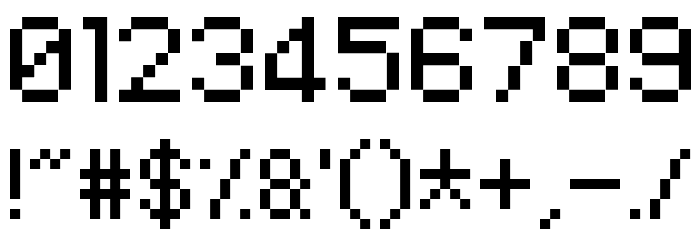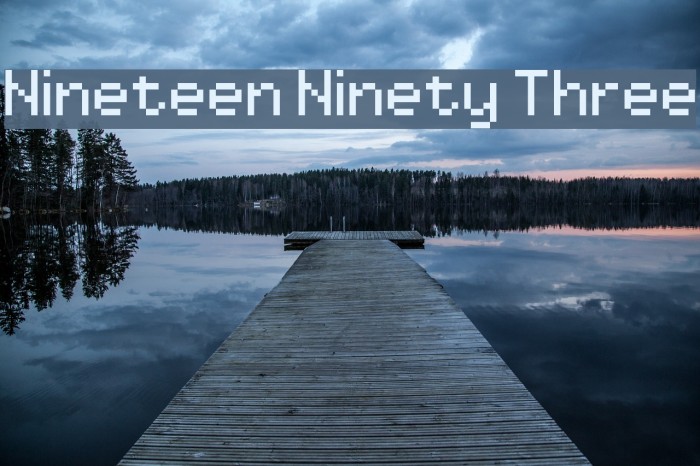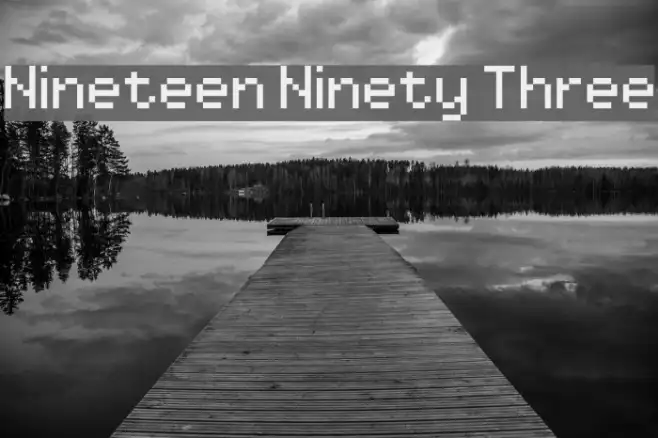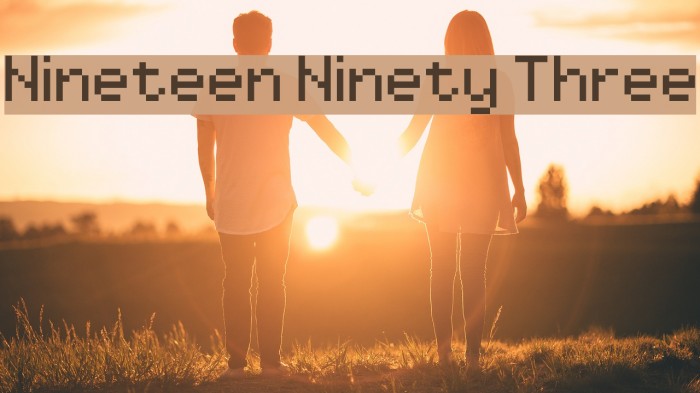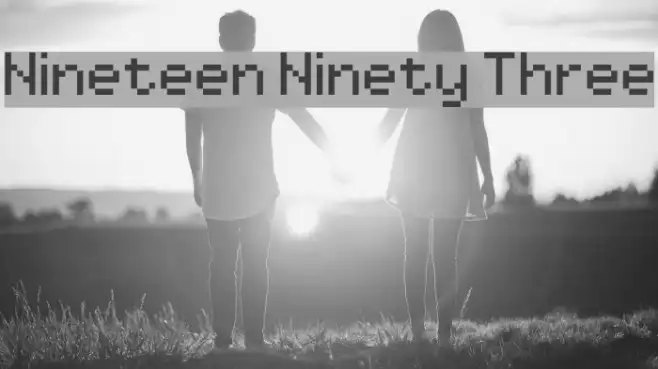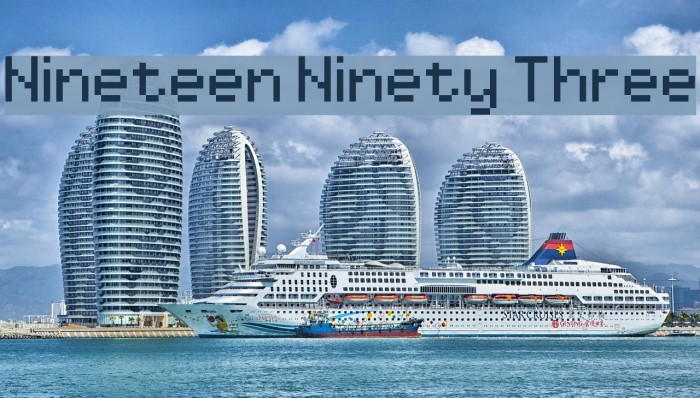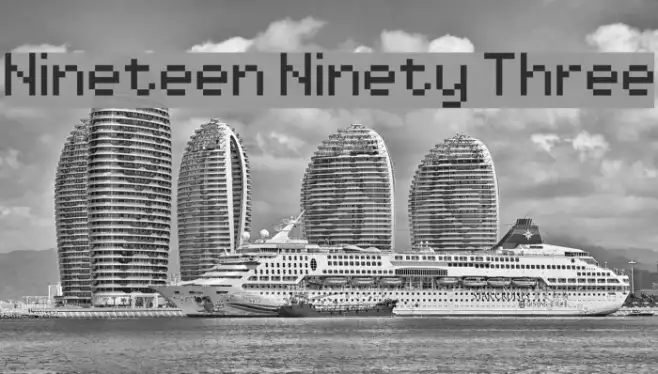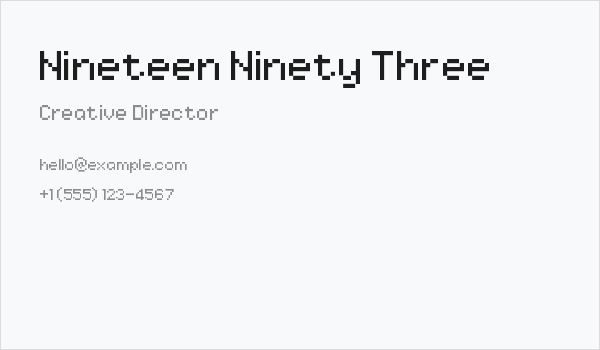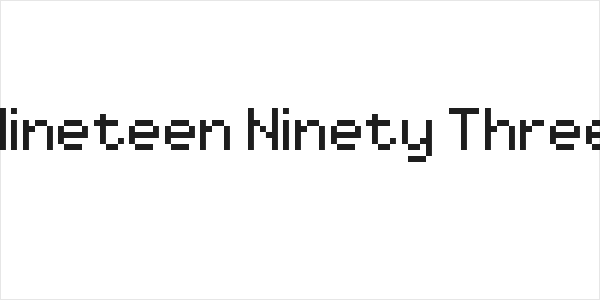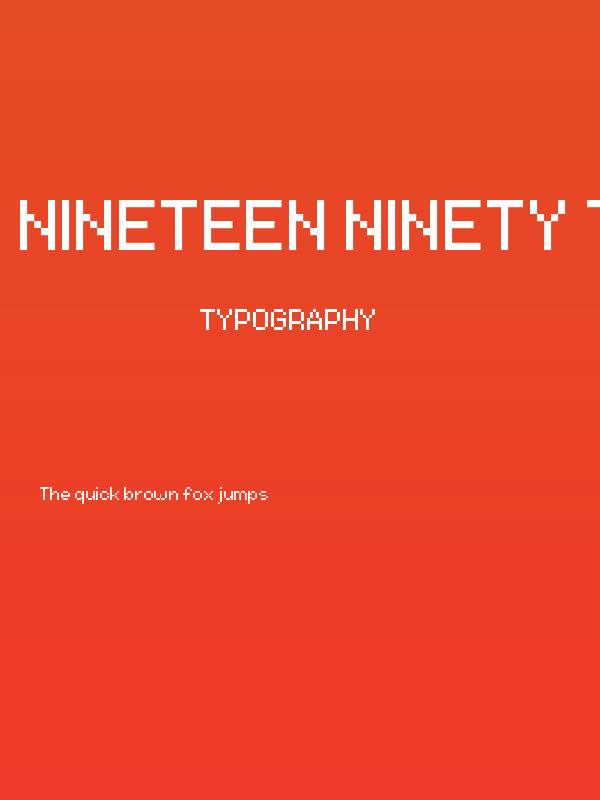
Nineteen Ninety Three Font
Nineteen Ninety Three Description
This font features a pixelated, blocky design reminiscent of early digital displays and video games. Each character is constructed with a grid-like structure, giving it a distinctly retro and technological feel. The uppercase and lowercase letters maintain a consistent height and width, enhancing the uniformity and readability of the text. The numerals and special characters follow the same pixelated style, ensuring a cohesive look across all symbols. The font's simplicity and geometric precision make it ideal for projects that aim to evoke nostalgia or a digital aesthetic.
| Use Case | Logos, Headlines, Digital Art |
| Proposed Projects | Ideal for retro video game designs, digital art projects, tech-themed posters, and any creative work that seeks to capture a vintage digital aesthetic. |